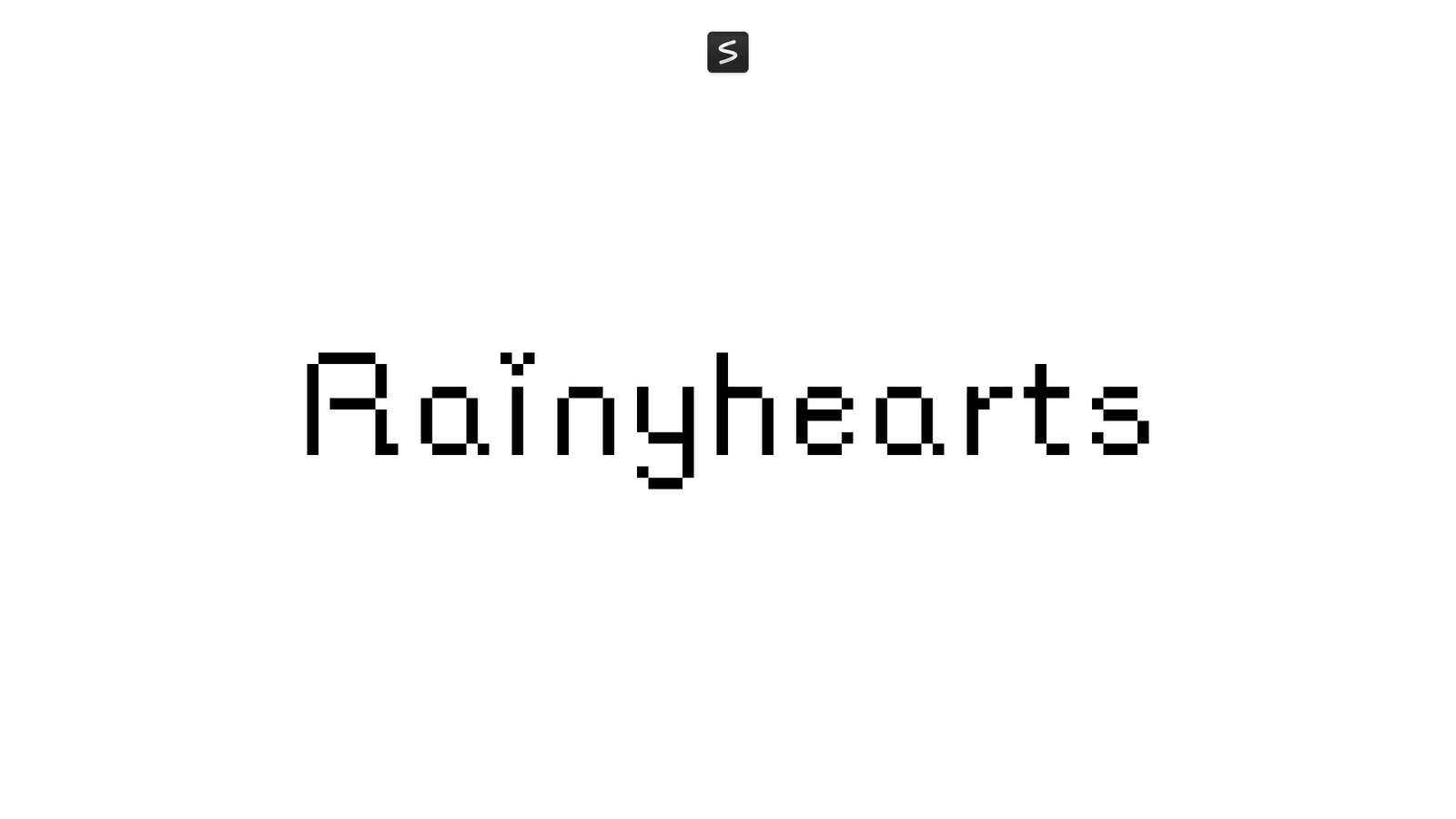
Rainyhearts is a delicate, thin-stroke bitmap font that brings a soft, dreamy quality to pixel typography. Unlike heavier blocky pixel fonts, its slim single-pixel construction feels gentle and almost handwritten, giving it a quiet, melancholic charm.
This font is a favorite for projects with a cozy, retro vibe — think indie visual novels, lo-fi game UI, kawaii graphics, journal-style zines, and aesthetic social media posts. Its airy spacing and slender letterforms read beautifully at small sizes, especially on screens where every pixel matters.
If you’re drawn to the softer side of pixel art and want a typeface that feels both nostalgic and tender, Rainyhearts is a perfect pick for adding a little emotional warmth to your designs.